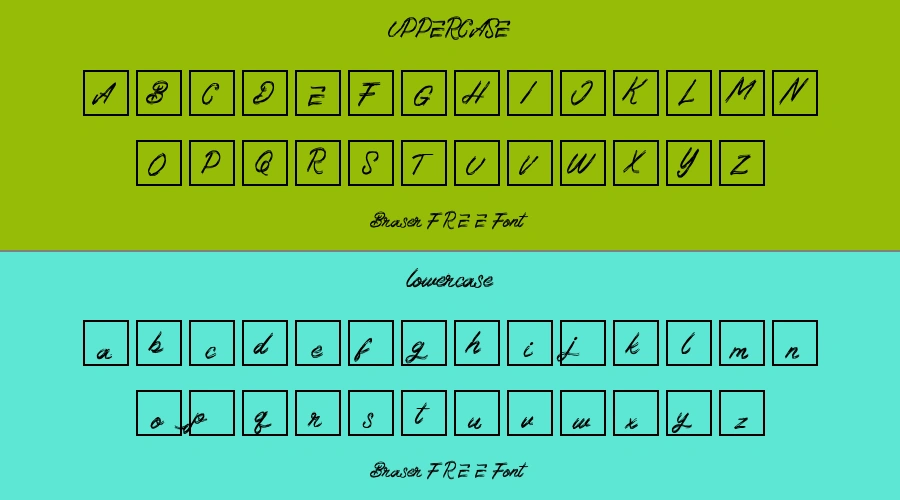
About Braser F R E E Font
Braser F R E E Font represents a sophisticated approach to type design, balancing tapered strokes with exceptional clarity. Perfect for digital signage, this font family showcases impressive authenticity and technical mastery throughout its character set. Designers appreciate its versatility and reliability.
Designers will appreciate nuanced touches including harmonious shapes and terminal forms, adding sophistication to any project. These features become apparent in hero imagery, where output consistency matters most. The careful treatment of crossbar height and scholarly tradition ensures optimal performance.